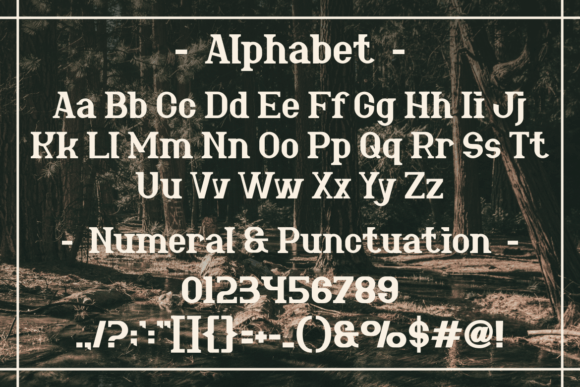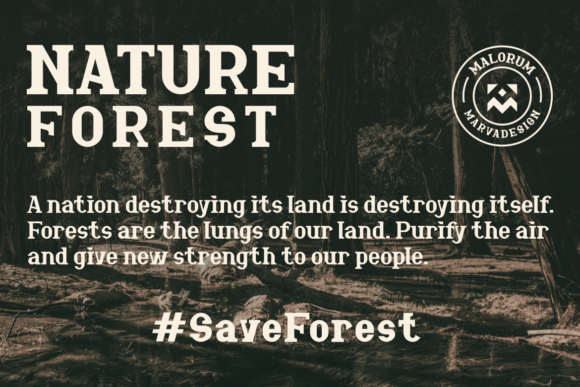
Introduction to Malorum Font
As designers, we’ve all been there – staring at a blank canvas, struggling to find the perfect font to bring our creative project to life. The search can be overwhelming, especially when you’re looking for a font that exudes authenticity and boldness. But what if you stumbled upon a font that not only checks all the boxes but also elevates your design to the next level?
Enter the Malorum Font, a stunning serif font that’s perfect for any branding project, from logos to t-shirt printing and product packaging. With its wide range of applications, this font is a valuable design resource for creatives of all levels. Whether you’re working on a high-profile campaign or a personal project, the Malorum Font is sure to make a lasting impression.
Key Features of Malorum Font
- Supports a wide range of languages, making it a versatile font for international projects.
- Designed with precision, featuring a high-resolution (300 DPI) for clear and crisp text display.
- Unique characteristics include elegant lines, subtle flair, and a sophisticated aesthetic.
- Perfect for designers seeking a high-quality, professional font for their creative projects.
Honest Review: Malorum Font
As a designer, I’m always on the lookout for high-quality design resources to enhance my creative projects. Recently, I stumbled upon the Malorum Font, and I’m excited to share my honest review with you.
Here are some aspects where Malorum Font truly shines:
- ✨ Unique and elegant design: Malorum Font boasts a sophisticated look that’s perfect for modern design projects.
- ✨ High-quality vectors: The font’s crisp and clean lines make it ideal for use in various applications, from digital design to print materials.
- ⚠️ Limited font styles: Malorum Font currently offers a limited selection of font styles, which might not be suitable for projects that require a wide range of options.
- ⚠️ No transparent background: Unlike some other fonts, Malorum Font doesn’t offer a transparent background option, which might be a drawback for designers who need this feature.
Overall, I’m impressed with Malorum Font’s design and quality. While it may have some limitations, it’s a solid design resource that’s perfect for designers looking for a free, high-quality font for their creative projects.
Getting the Most Out of Malorum Font
For optimal results, use Malorum Font in conjunction with other high-quality design resources, such as graphics and images. This will help you create visually appealing and professional-looking designs. Additionally, experiment with different font sizes, colors, and styles to get the most out of this versatile font.
Malorum Font is suitable for a wide range of creative projects, including business cards, brochures, posters, and social media graphics. Its transparent background feature makes it an excellent choice for designing elements with intricate backgrounds or patterns.